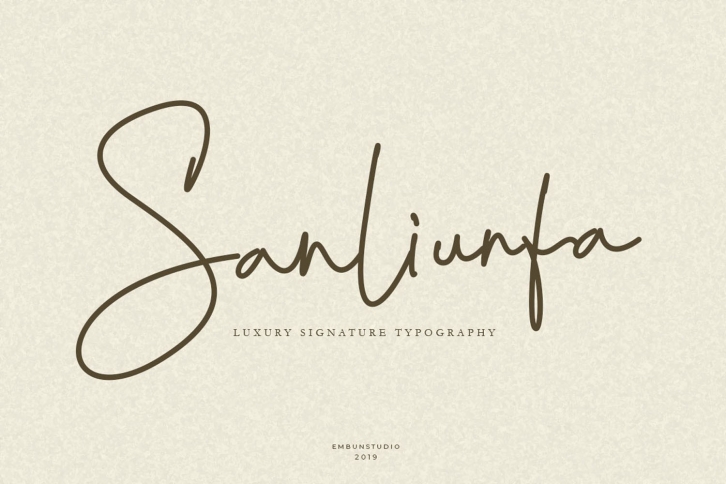
Sanliurfa Stylish Signature is a trendy and unique font with an authentic style. It was designed by rezkistore and it's a great choice for creative people who need such a font. It was released on November 6, 2019 and the file size is 12.19 MB. Sanliurfa Stylish Signature will add an organic vibe to any design idea!